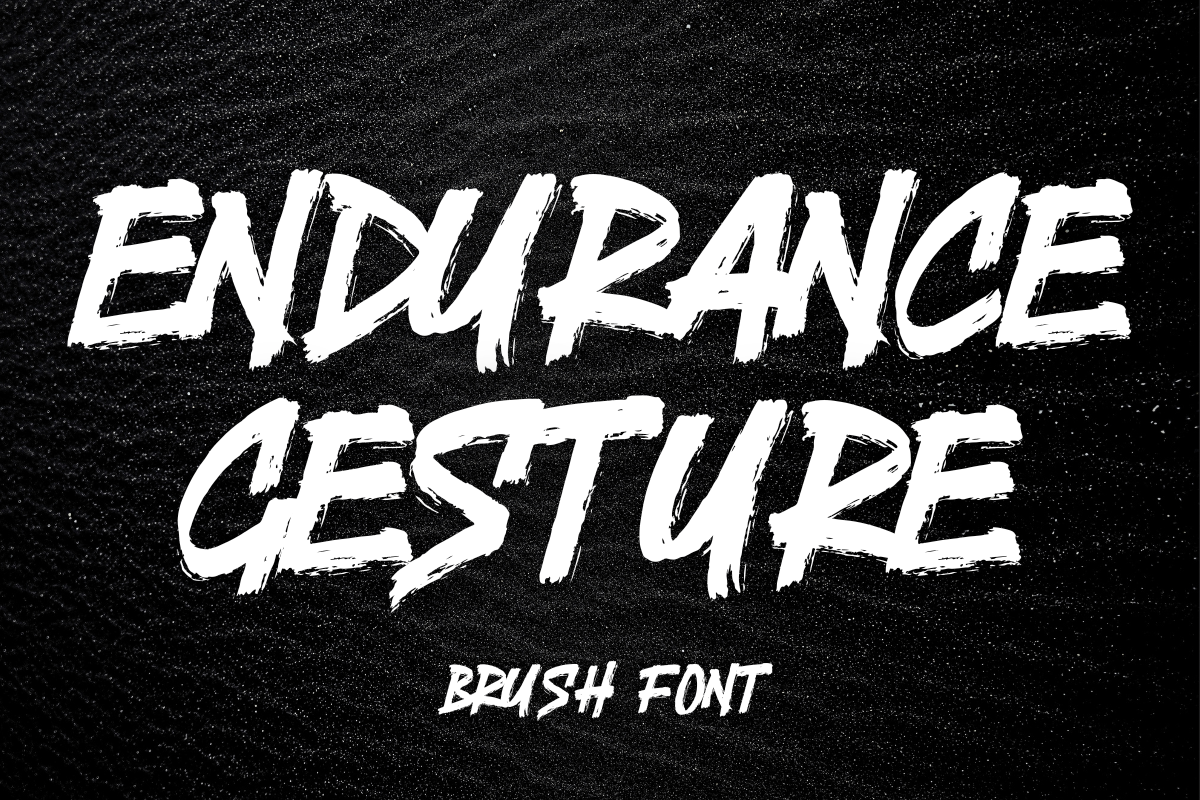
Endurance Gesture – Brush Font
Unleash bold creativity with Endurance Gesture, a handcrafted all-caps brush display font. Featuring authentic brush textures and extensive multilingual support, this font is perfect for designers looking to create striking visuals for both modern and classic projects.
-All-uppercase characters with bold, textured brush strokes.
-Multilingual support for global design projects.
Ideal For:
-Branding that demands attention.
-Posters, flyers, and dynamic event designs.
-Packaging and merchandise that stand out.
Bring energy and creativity to your designs with Endurance Gesture, a font that makes every project unforgettable!